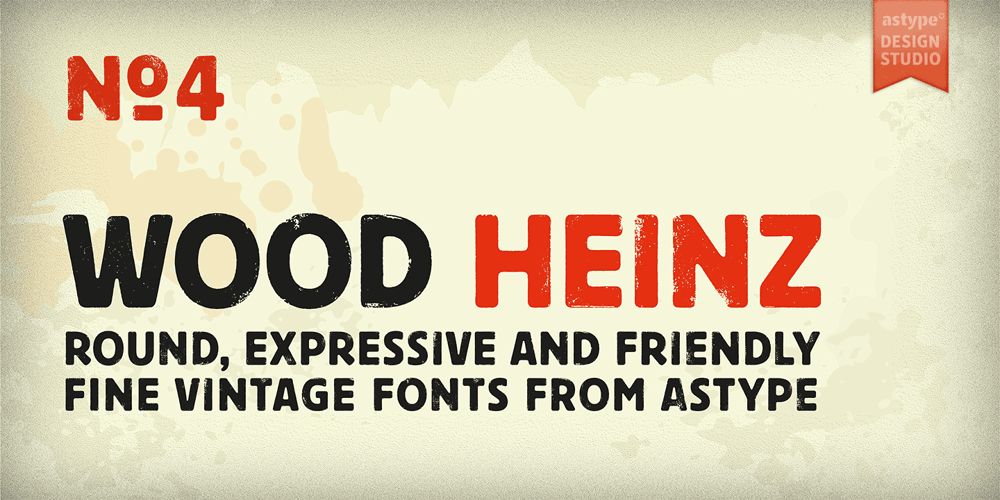
Wood Heinz No. 4 Font Family was designed by Andreas Seidel and published by astype. Wood Heinz No. 4 contains 2 styles and family package options. Just Wood Heinz No.4 – the cool display font. Wood Heinz No.4 offering up to four “printed look” variations of all the Latin base letters and figures. An OpenType letter rotator is programmed into the fonts to emulate the randomness of wood type printing. You can switch manually to the alternate letters by using the Stylistic Sets 1 – 4. Stylistic Set 5 will activate the more common look of the capital letter R with a straight leg. >>> PDF Specimen <<<